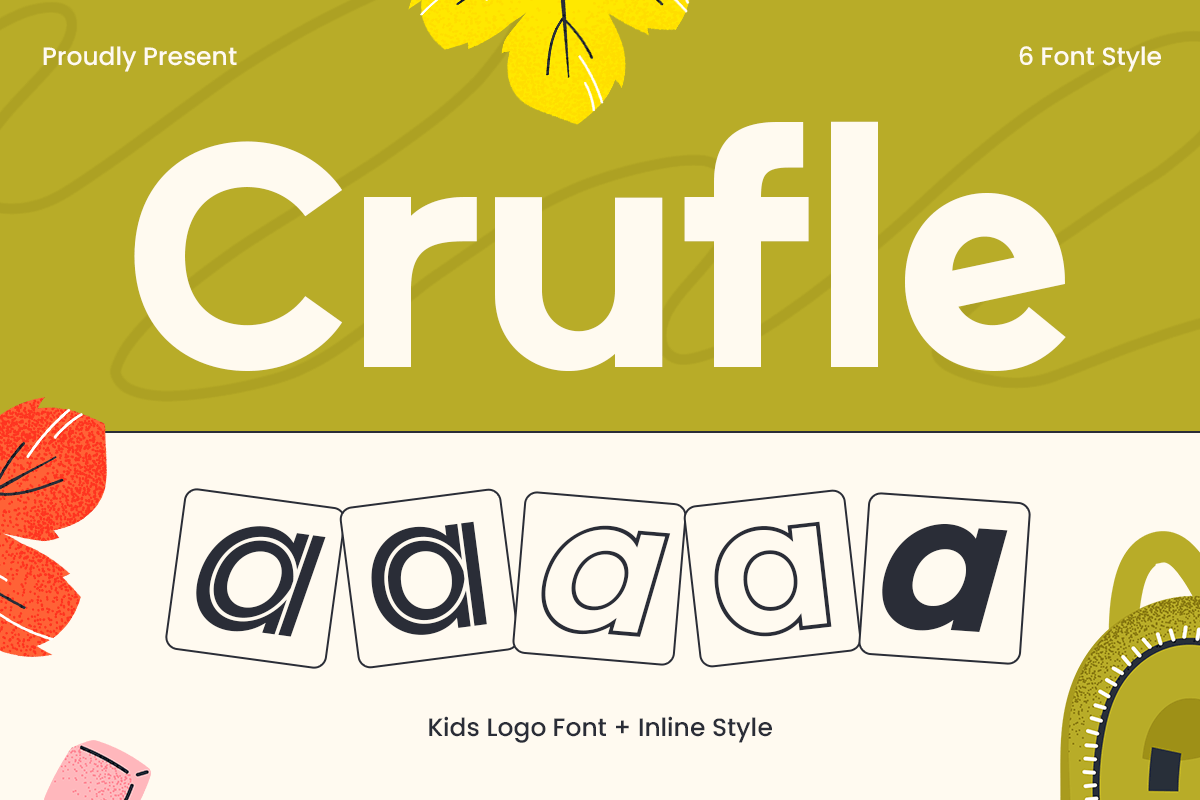
Crufle
-Kids Logo Font + Inline Style
Crufle - Kids Logo Font + Inline Style
Crufle is a bold and bubbly kids font with an inline twist—made to light up your designs with joy and playfulness. Its rounded shapes and happy vibes are perfect for children’s logos, snack branding, packaging, games, books, and more.
The inline style adds a unique layer of fun, making each letter feel alive and full of personality. Whether you're designing for toddlers or big kids at heart, Crufle adds that delightful, youthful energy that makes everything feel more engaging.
Say goodbye to boring fonts and let Crufle add charm, color, and character to your next kids project.
Crufle – Kids Logo Font + Inline Style Features
• Fun inline character style with bold rounded forms
• Ready with 6 different style for more variations
• Perfect for kids branding, snacks, books, and games
Let your imagination run wild with Crufle—the font that’s made to giggle, play, and pop!